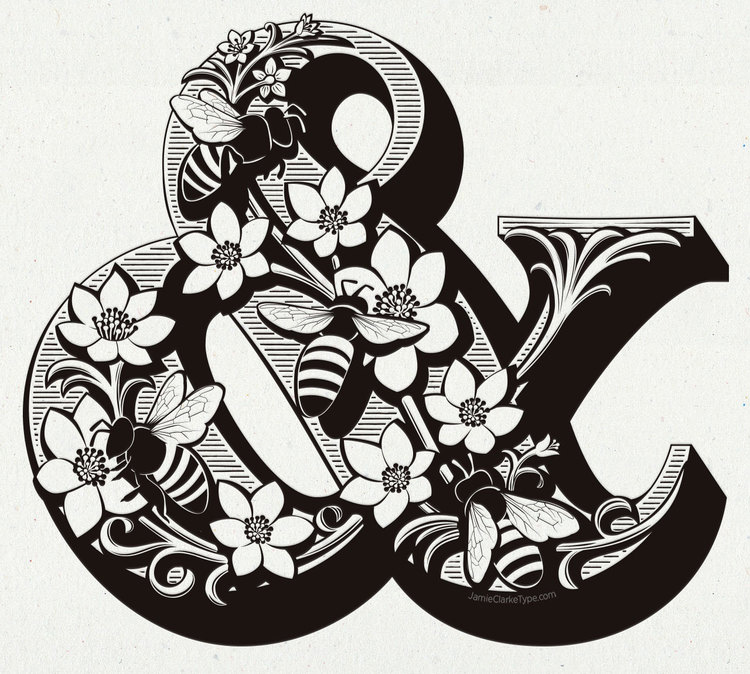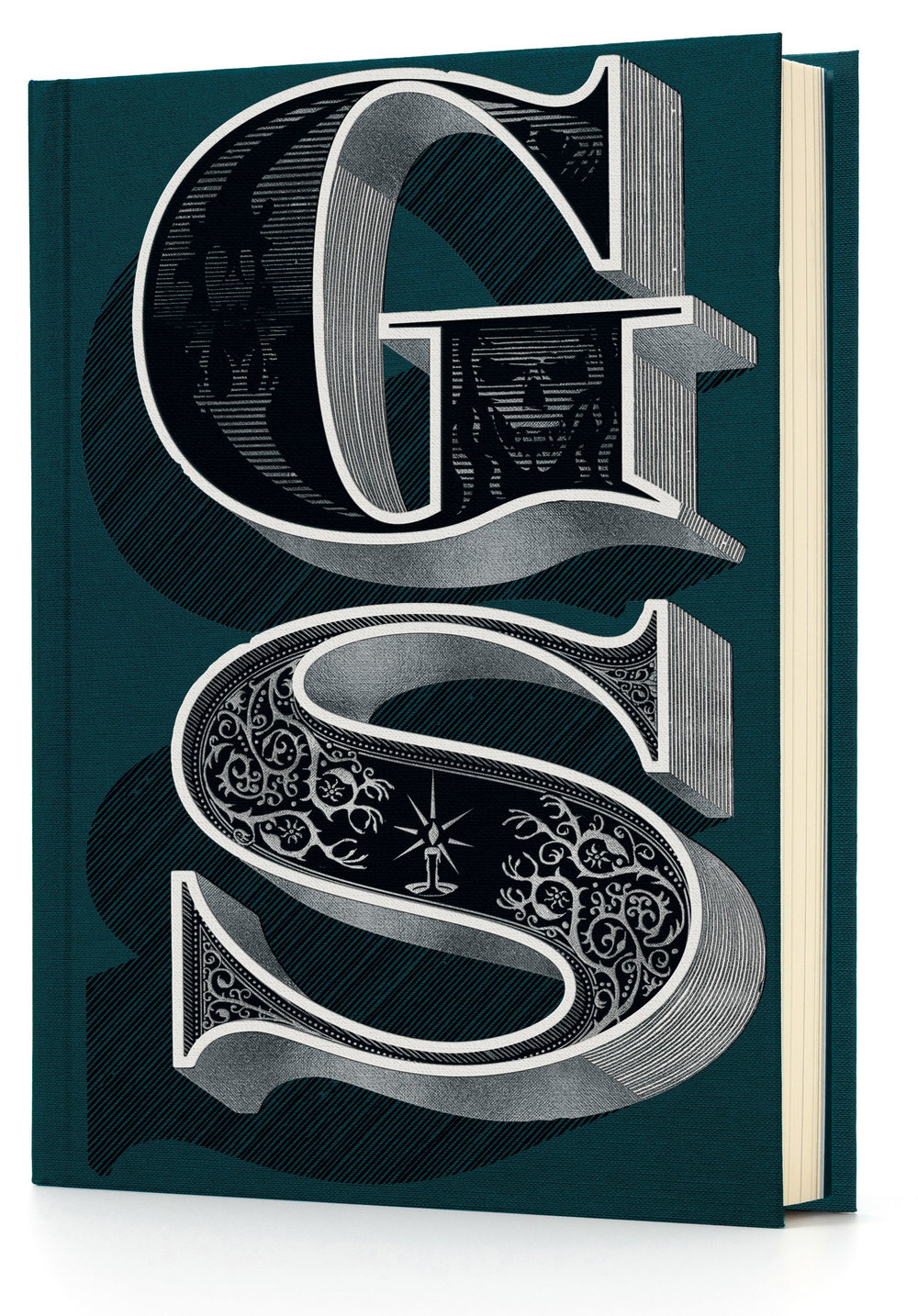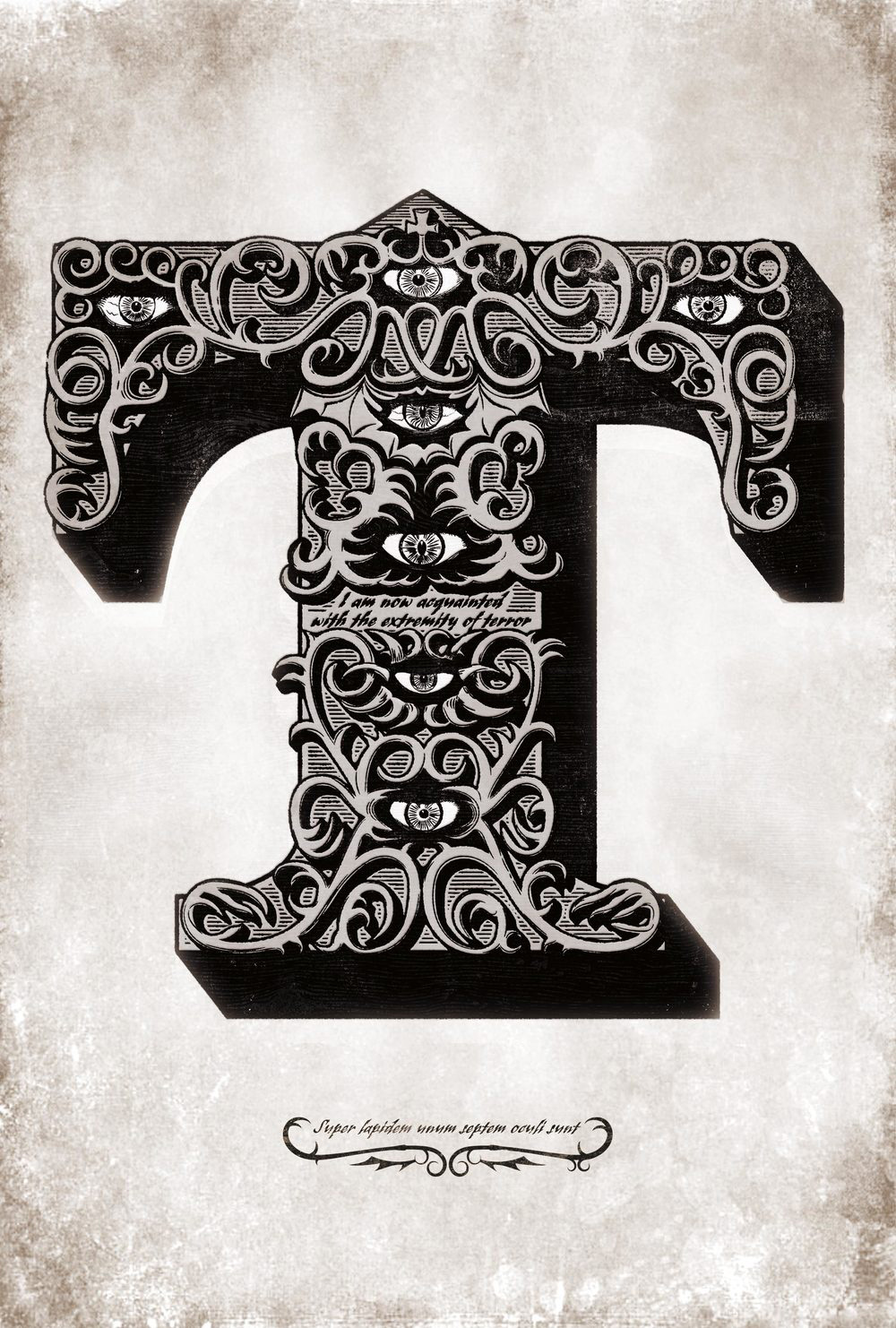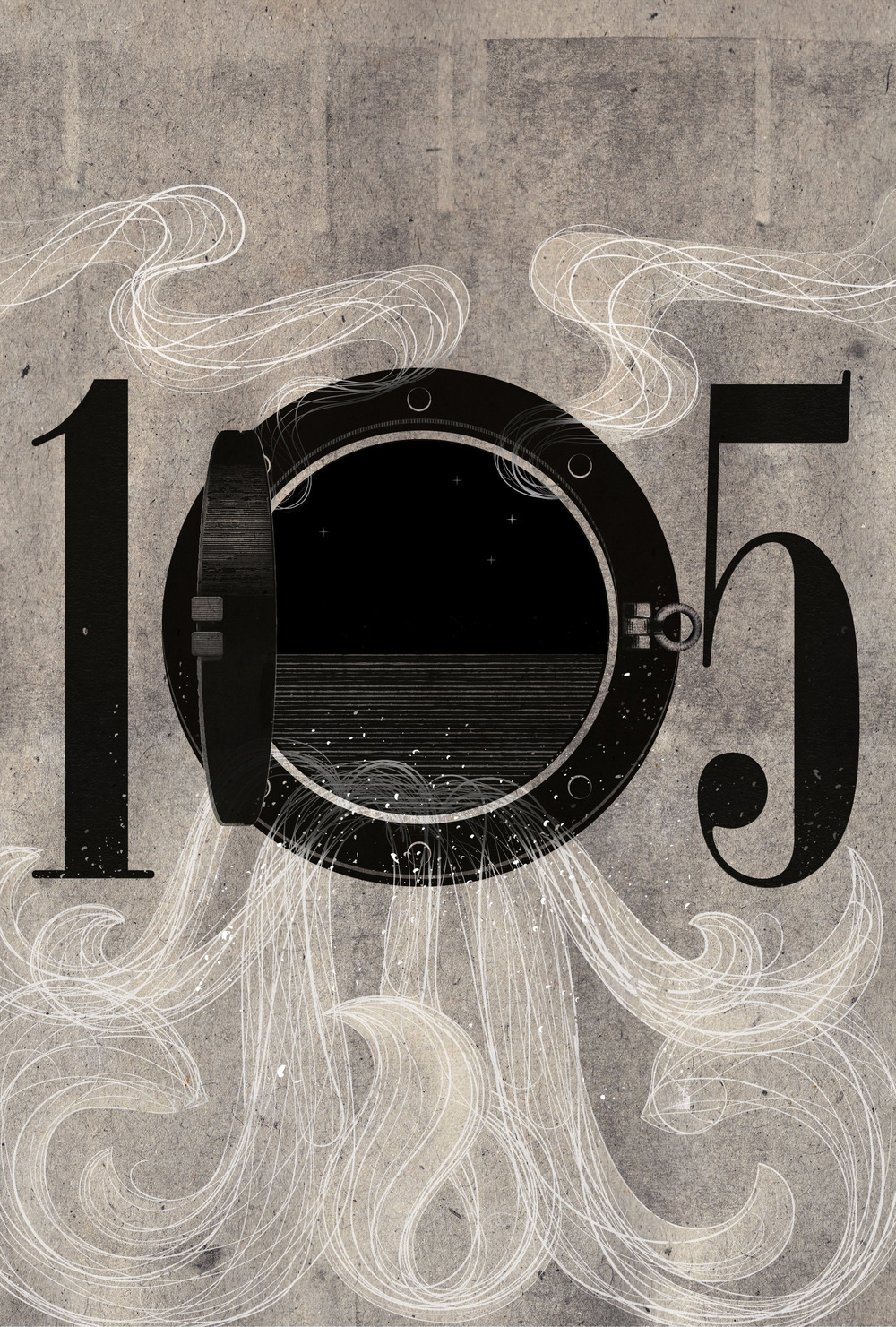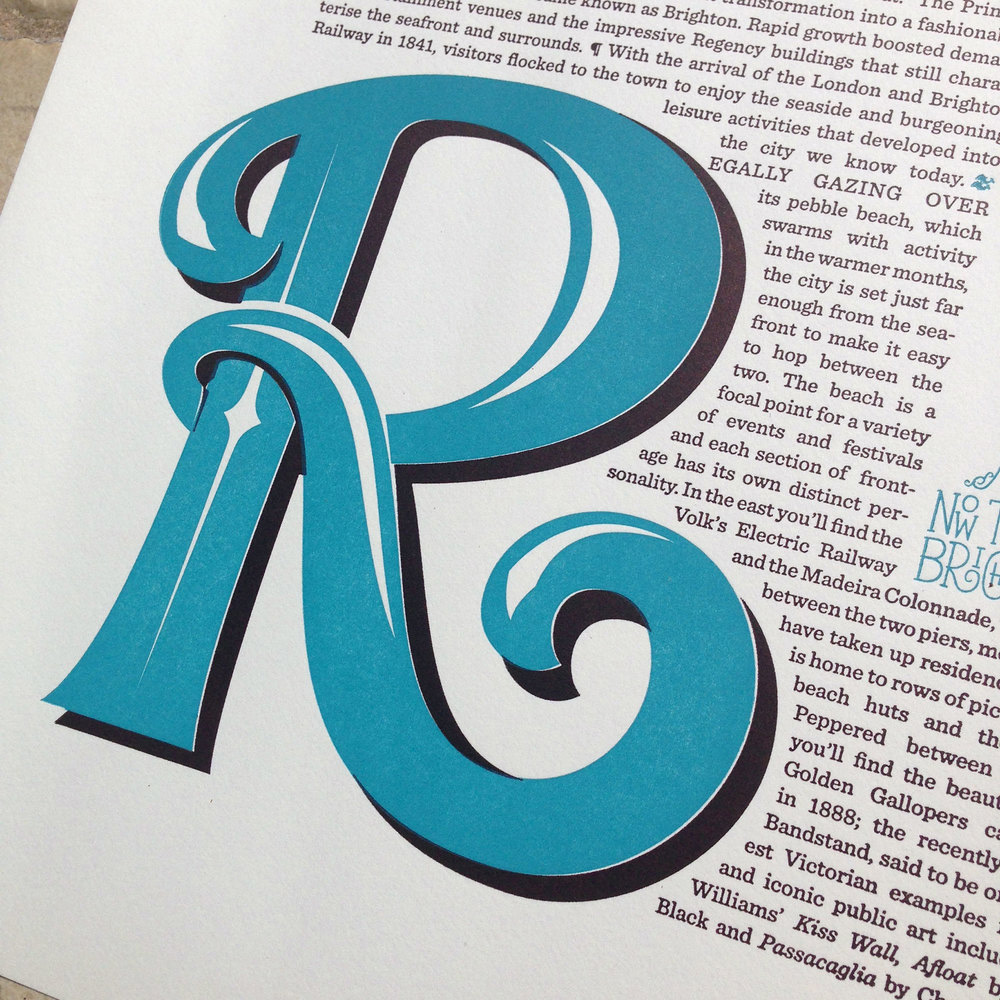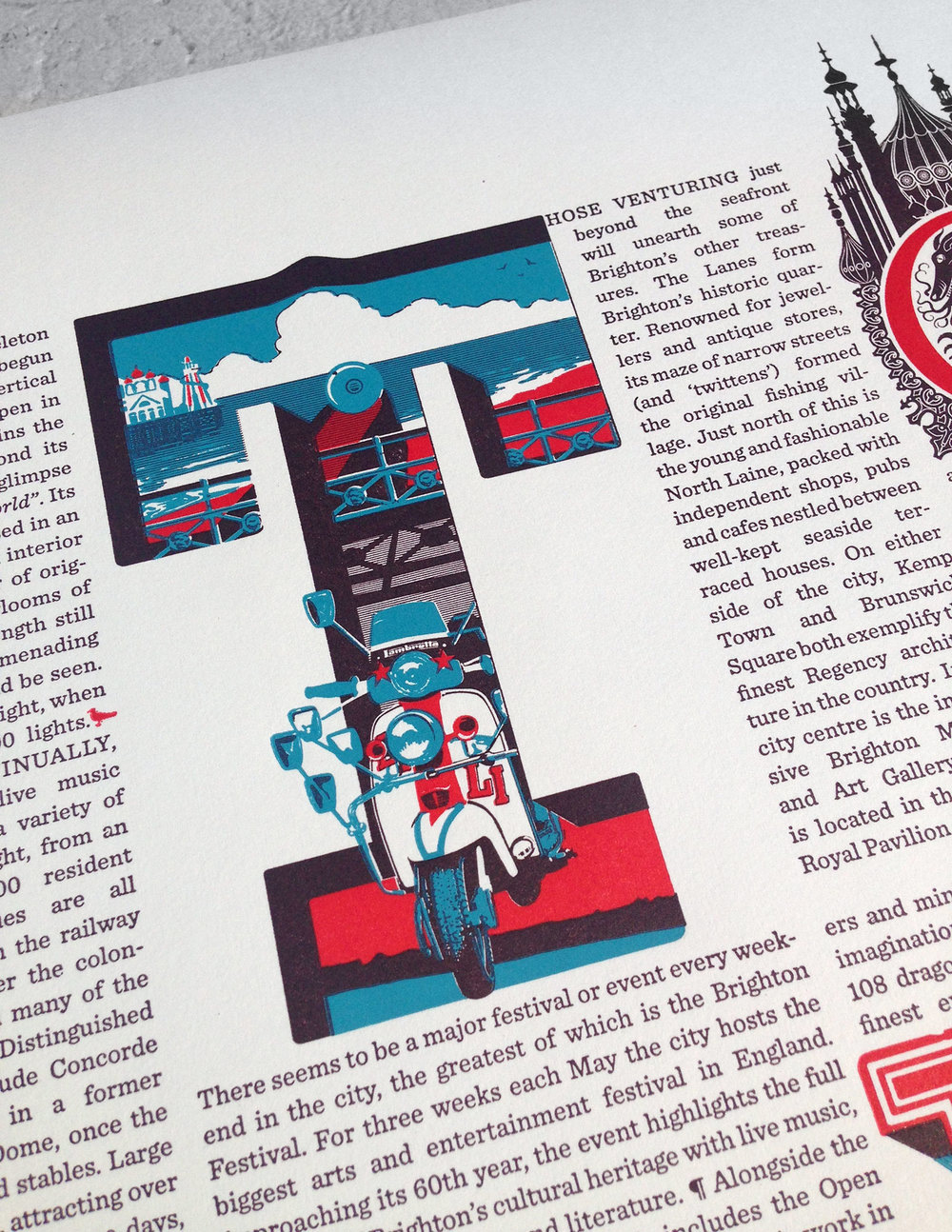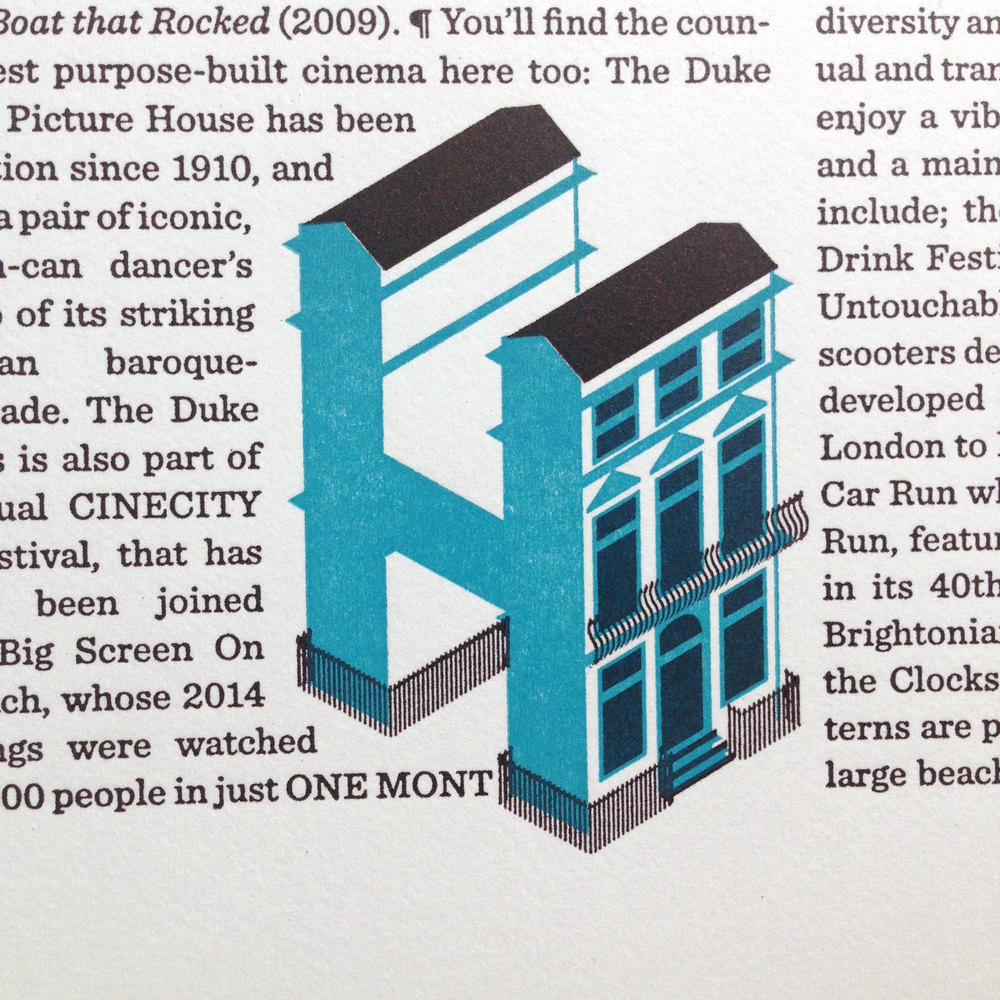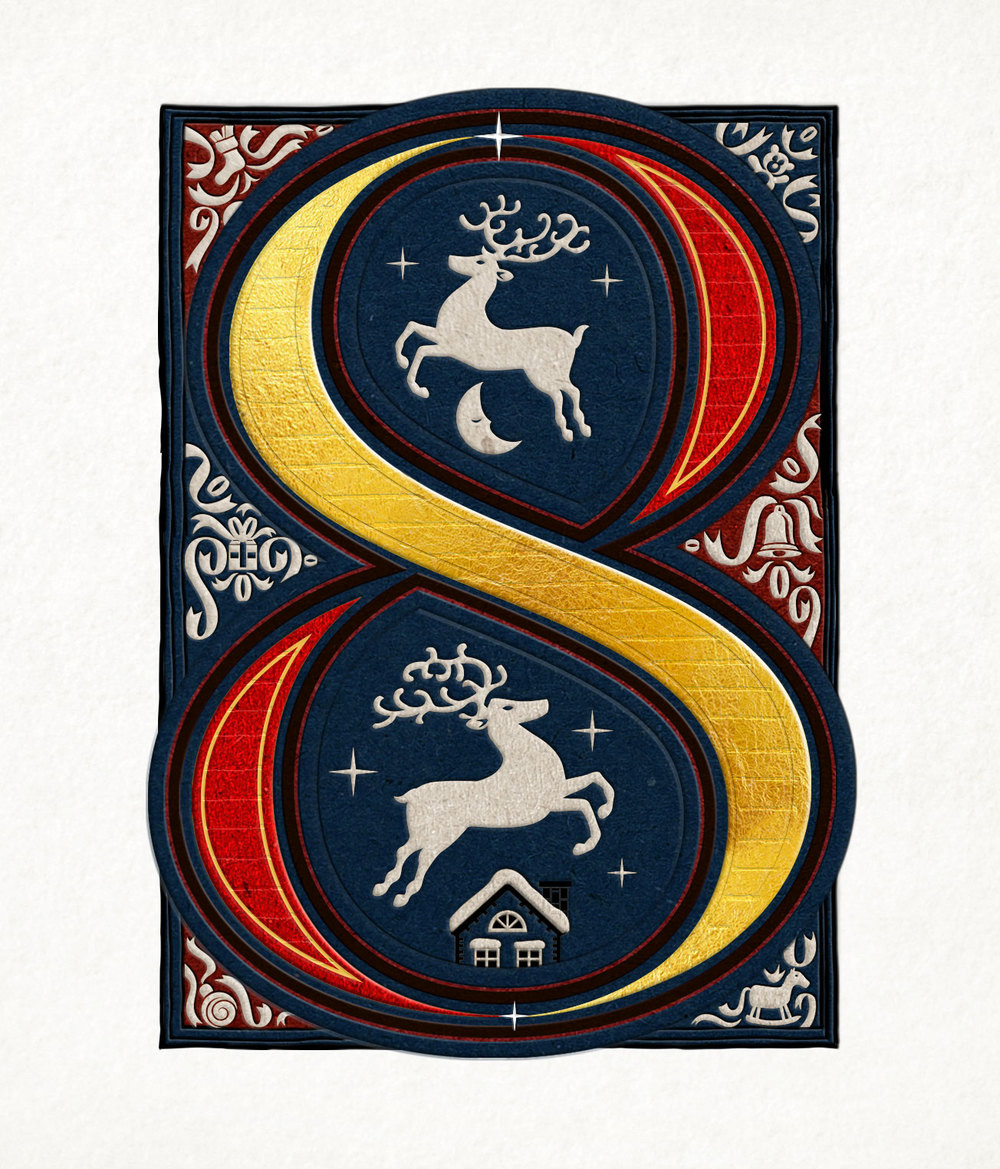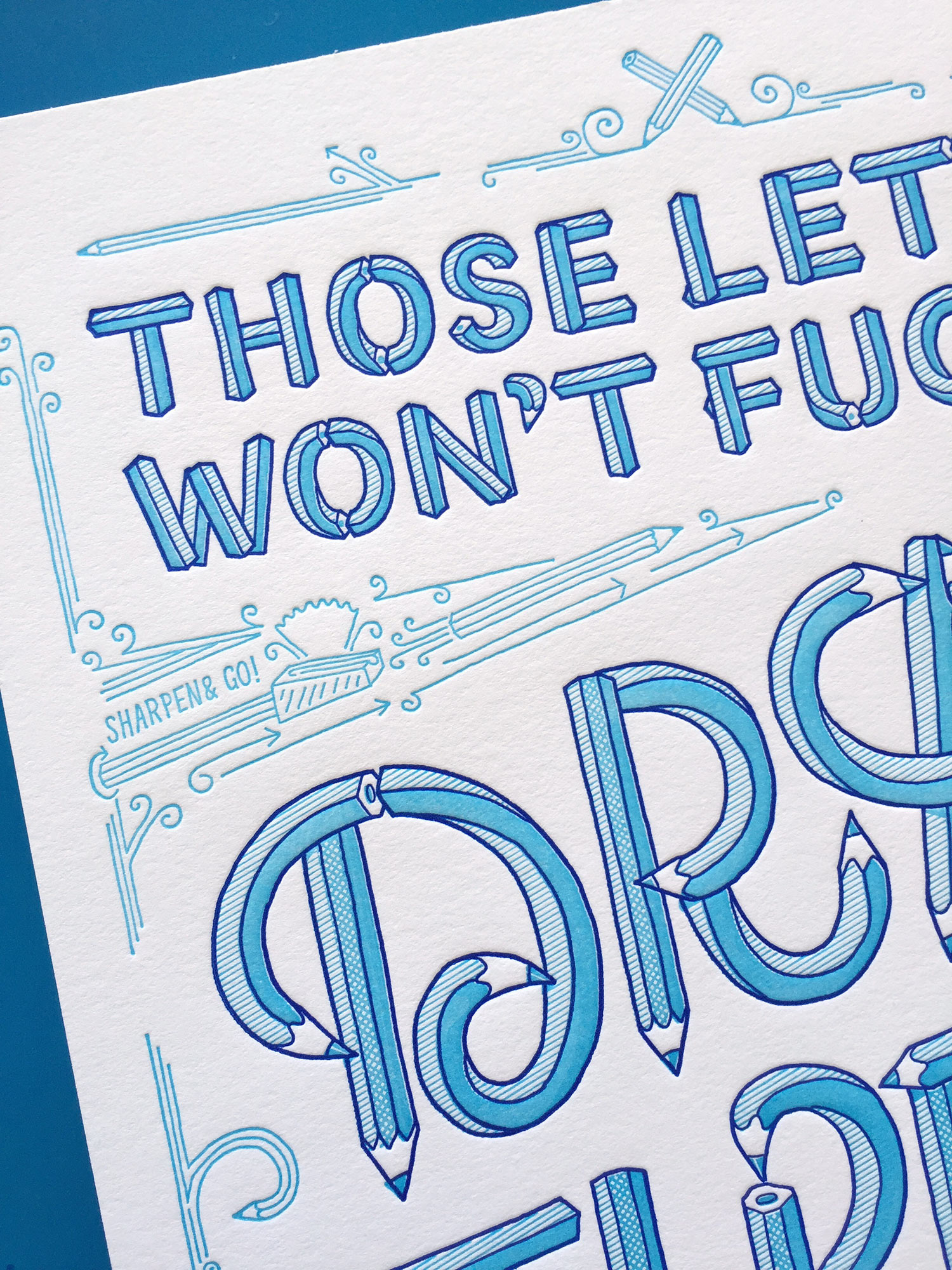
Jamie Clarke worships type and you should follow his lead
This is the story of a very unusual individual: A dedicated professional and a creative entrepreneur. He is regarded as a strategist, determined and inventive (a natural born leader with great sense of humour, they claim) who has an equally impressive background. Passionate for design and a true lover of typography Clarke studied Type Design at Reading University and Letterpress at the St. Bride Foundation in London. The Head of Design at Microsoft EMEA before forming the digital agency, Thin Martian (a top 100 UK design company according to Design Week) today he is a dedicated follower of the letterform.
“I specialise in illustrative type and lettering” he writes on his website. “My aim is to bring words to life and make them more vivid with decoration and imagery. The designs can be fun or serious, as long as they enhance the message” he adds. Jamie Clarke knows what is buzzing as he is exploring the endless styles and trends leading the type and lettering world though his very popular blog, Type Worship which has a following of over 200,000 typography enthusiasts. Part of the team behind the typography magazine, 8 Faces, created by Elliot Jay Stocks, Jamie Clarke now resides is Sydney where he is expanding his collection of lettering projects and typefaces. Typeroom wanted to know how it all started and Mr. Clarke responded kindly.
How did it all start?
It’s been a long journey! In a nutshell; I’ve loved type and lettering since studying graphic design. On graduating, I fell into a career in web design. Back then, font options were severely restricted and I was diverted away from my calling. After working at Microsoft and spending 10 years building my web design agency, the calling began to resurface. I started the Type Worship blog as a place to collect and explore the various styles of type and lettering that spoke to me.
My passion was soon fully rekindled and the desire to focus on it was a contributing factor to me selling my agency. I started over. I took a number of courses to polish up my skills, like letterpress and screen printing and I spent two summers studying type design at Reading University. The course at Reading was life changing (I wrote about it here), and it set me on my current path.
How has your background as Head of Design for Europe at Microsoft affected your typographic vision?
Well, I learnt an incredible amount at Microsoft; designing for huge and diverse audiences, being creative with technology and the internal dynamics of large organisations. But I think these were more beneficial in running my own agency. Indirectly, the typographic restrictions of the web at that time, combined with the suppression of my passion for type have made me more determined to pursue my love for decorative lettering and typography.
Why did you decide to refrain from the digitised world and focus on hand-crafted work?
I really wanted to make things that would last. Things focused less on code and new technology and more on traditional craftsmanship: things that would still be around when I’m not. I’ve not forsaken my Mac by any means – it’s still an essential part of my workflow, but I’ve relegated it to my production process, not my creative process.
I enjoy the immediacy of drawing with a pencil and when I have a vision in my head, the most natural way for me to capture it is with a pencil sketch. I then try and remain in that analogue mode for as long as possible; redrawing ideas and refining details until I’m ready to trace the design and create the vector artwork on my Mac. Like any tool, the computer leaves its own mark on the work, so by deferring its use I’m tying to limit its effect on my designs. Plus, the more I’m drawing, the more I’m investing in my illustration skills.
Do you consider working with typography is a good way to learn and experiment?
Yes. Tying to make type fit harmoniously into a design will inevitably throw up numerous challenges. Over time you’ll learn techniques and hone your senses to smooth these issues out. I had to re-learn everything I’d forgotten from design school; using a baseline grid, H&J settings, the spatial relationships between headings and body copy, etc. Now I’m more comfortable experimenting with type and enjoy breaking the rules. Some of my layouts include openings for drop caps at the end or middle of paragraphs, which is fun. However, at the same time I’ve strived to maintain the readability of the overall pieces.
You’re currently living in Australia, having moved from your native London. Does travelling help to improve your skills?
I think it certainly gives you a fresh perspective. I always have a notebook to hand on holiday, as my best ideas came when I’m relaxed, travelling and experiencing new things. I’ll constantly be doodling and writing notes. Living away from home (I think London will always remain my home) seems to have extended this aspirational feeling, even though I still have a work routine and day-to-day commitments.
With regards specifically to Australia; a recent branding project I worked on required some illustrated lettering featuring native Australian plants. Some of them were quite alien looking, compared to the European plants I’m familiar with. It took a lot of experimenting before I could visualise them in a simplified and recognisable way but it was a great learning experience.
Who are your typo-heroes?
Wow, there are so many. I follow the work of lots of my contemporaries and the blog is a great excuse to get in touch with them. I consistently love the work of letterers like Martina Flor, Seb Lester, Tom Lane, Ken Barber, Neil Secretario, Linzie Hunter… the list is endless. The most profound influence on my own work though has come from an assortment of master craftspeople; the foundry of Louis John Pouchée, William Morris, Alan Kitching, Herb Lubalin, Willy Fleckhaus (Twen Magazine), Michael Bierut, Phil Baines, Gerry Leonidas and Louise Fili.